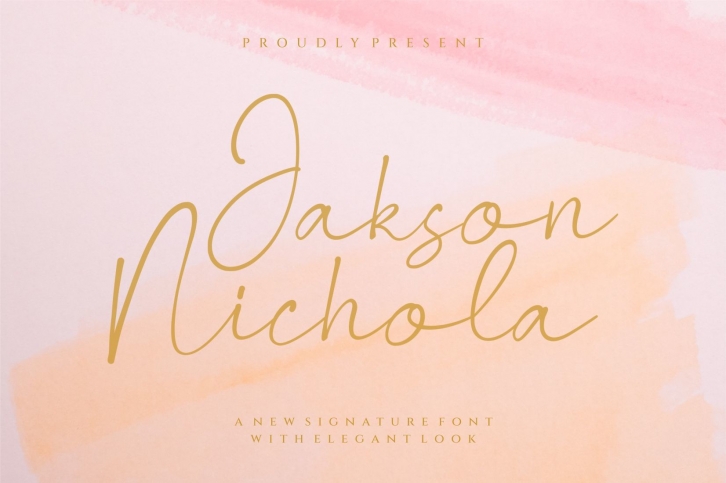
Jakson Nichola is a thin lettered and fashionable script font. It is defined by smooth curves and is perfect for fashion branding or editorial designs. Add it confidently to your projects, and you will love the results.